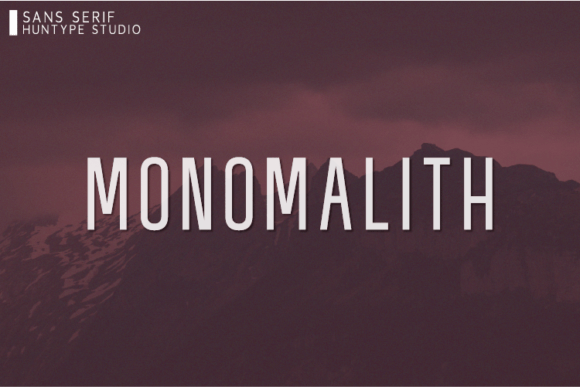
Prepare to be captivated by Monomalith, an extraordinary sans serif font that will ignite your creativity and elevate your designs to new heights. Crafted by the skilled hands at Huntype, Monomalith embodies the spirit of Christmas with its timeless charm and exquisite style.
Indulge in the versatility of Monomalith, a font that seamlessly adapts to your every need. Its clean lines and subtle contrast dance harmoniously, creating an aesthetic that is both captivating and timeless. Monomalith effortlessly transforms logos, branding, and web headings into works of art, leaving an unforgettable impression on all who encounter it.
Step into the enchanting world of Monomalith and experience the magic of Christmas. Its elegant curves and playful details evoke the warmth and wonder of the festive season, making it the perfect choice for creating designs that resonate with the spirit of giving and joy.
With Monomalith, your creations will radiate a touch of Christmas magic, spreading cheer and capturing the essence of the most beloved time of year. Download Monomalith today and embark on a creative journey filled with endless possibilities. Let its timeless beauty inspire you to design with passion and create memories that will last a lifetime.